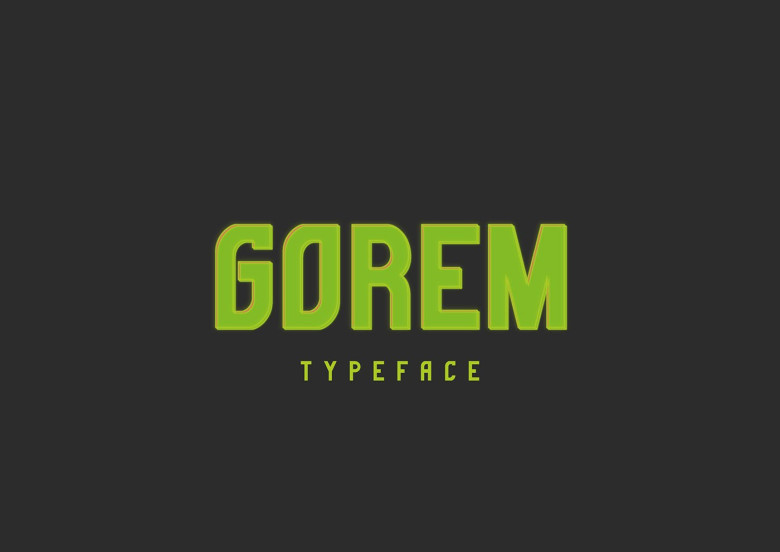
Gorem Typeface
Introducing Gorem | Free Typeface!. Gorem was designed and shared by Erinc Kara. Gorem is a solid and shopisticated display font, created to emphasys big headline, title, single character and also good for short description paragraph. This font will be best suitable for logo, wall sign, cards, ads, t-shirt, banner, flyer, poster, merchandices and many more similar projects!.